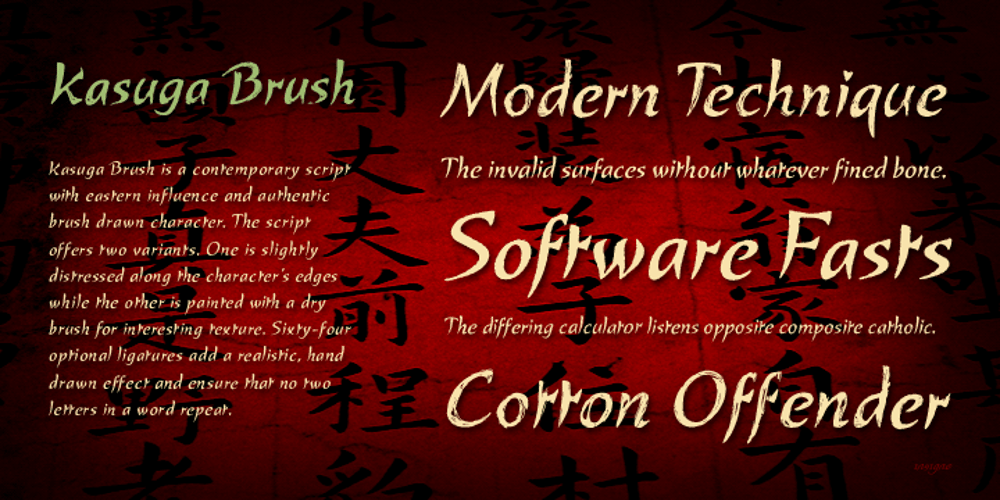
Kasuga Brush
Kasuga Brush font
Kasuga Brush Font Family was designed by Jeremy Dooley and published by insigne. Kasuga Brush contains 2 styles and family package options. Kasuga Brush is a contemporary script with eastern influence and authentic brush drawn character. The script offers two variants. One is slightly distressed along the character’s edges while the other is painted with a dry brush for interesting texture. Sixty-four optional ligatures add a realistic, hand-drawn effect and ensure that no two letters in a word repeat.